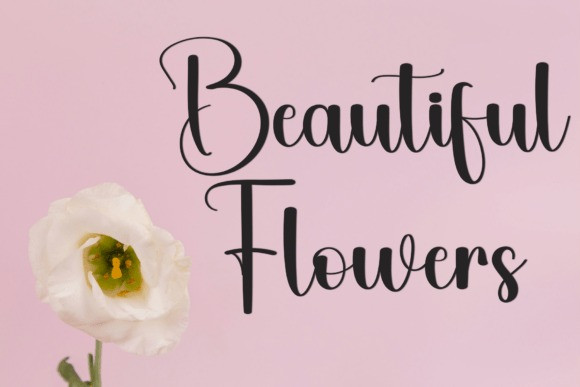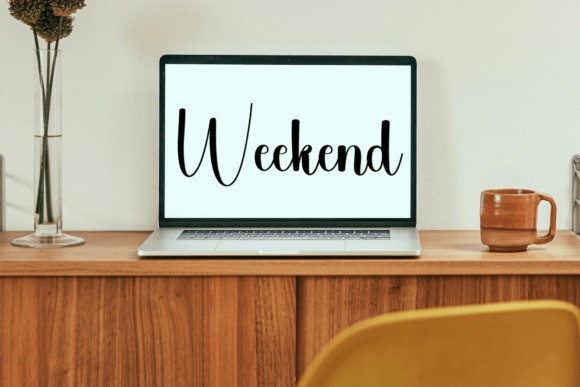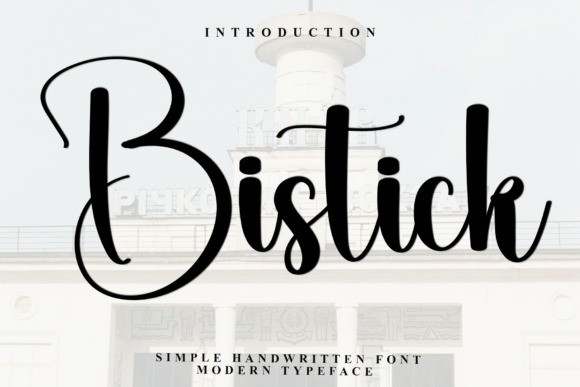
Bistick Script Font
Bistick Script Font is a lovely and timeless handwritten font. It is the best choice for creating eye catching logos, branding and quotes. Every letter has a unique and beautiful touch, which will make your design come alive!